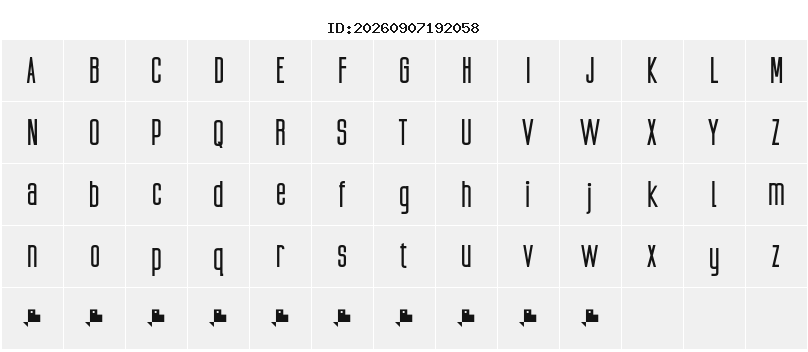
Ubicada Preview
• Font Name: Ubicada
• Font ID: FernandoHaro: Ubicada Bold: 2015
• Full Font Name: Ubicada-Bold
• Version: Version 1.238
• PostScript Name: Ubicada-Bold
• Character Count: 237
• Designer: deFharo
• Manufacturer: Fernando Haro
About Ubicada.otf
Ubicada.otf is a modern, elegant sans-serif font designed for ultimate readability and visual harmony. Perfect for branding, headlines, web design, and print materials.